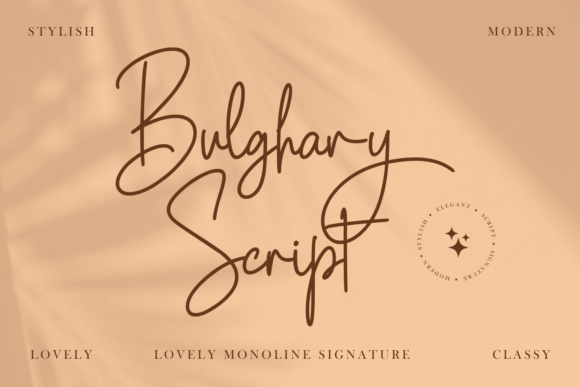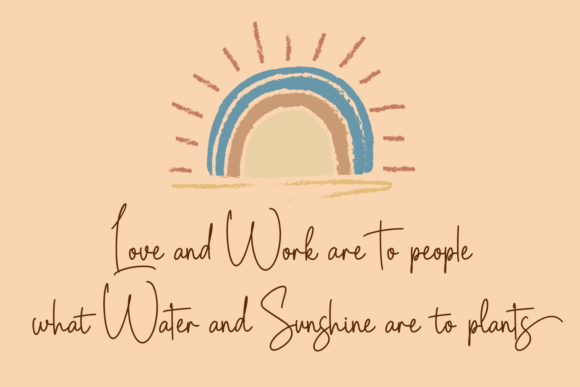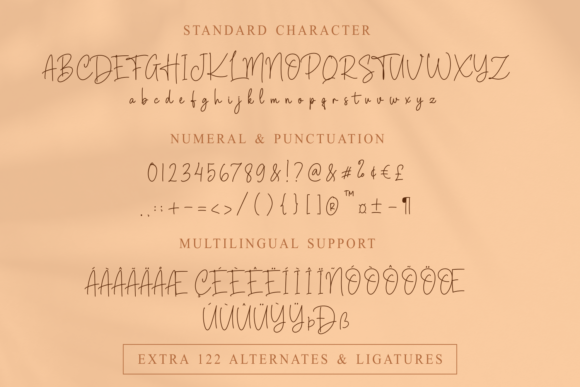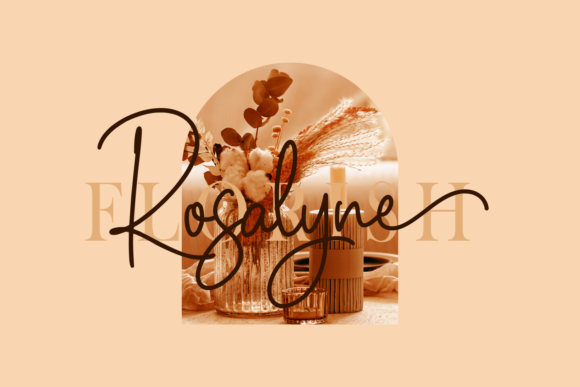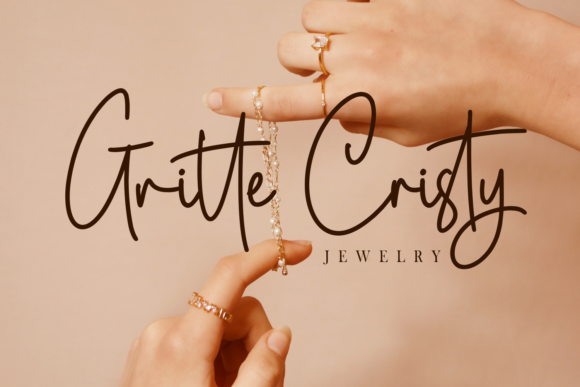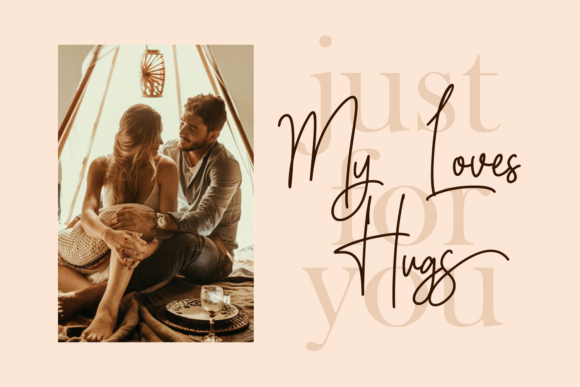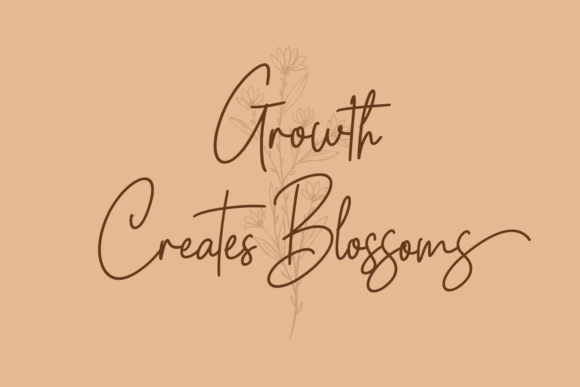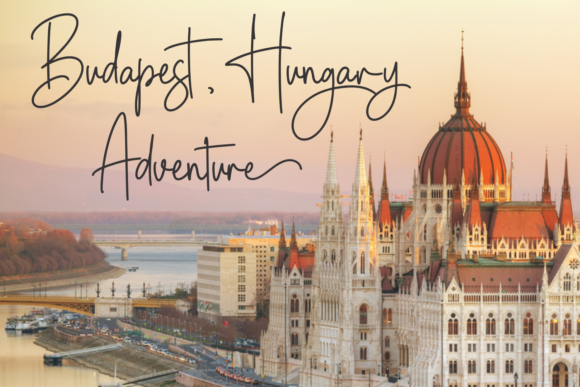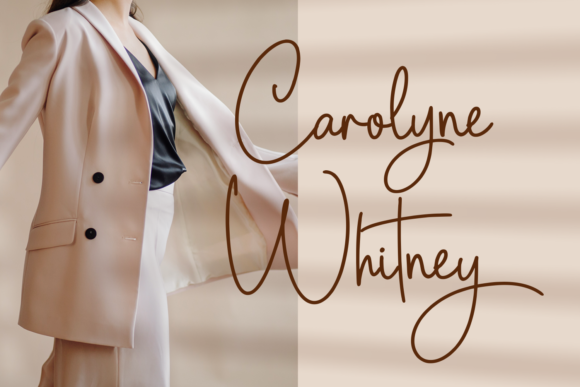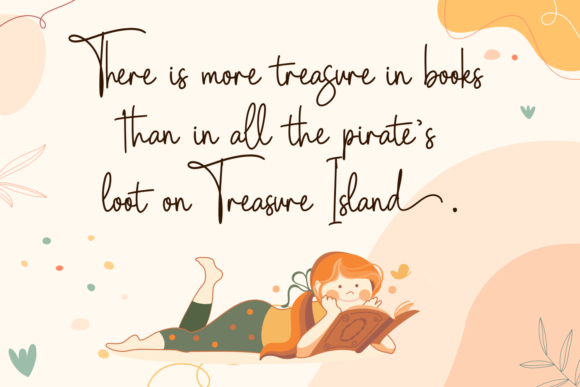
Bulghary Script Font
About Bulghary Script Font
Bulghary Script is a thin lettered and delicate script font. Fall for its ravishing style and use it to create gorgeous designs. This font is PUA encoded which means you can access all glyphs and swashes with ease!